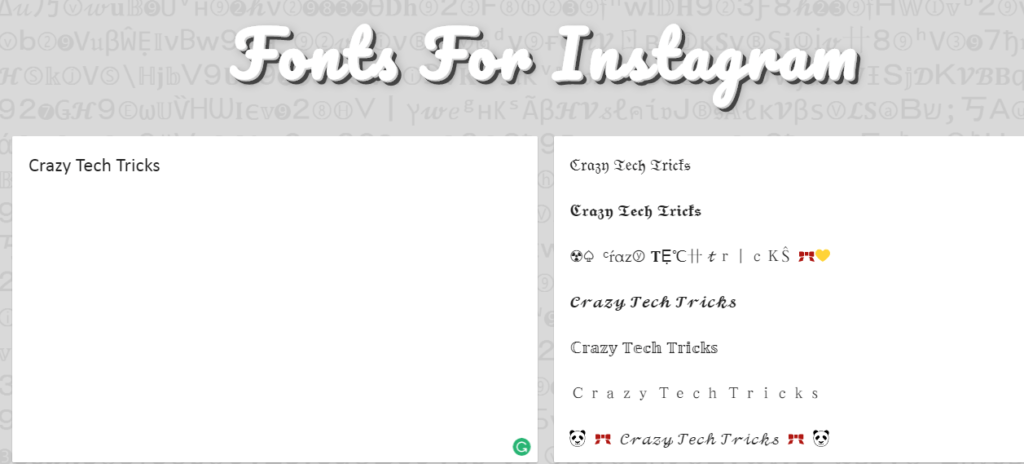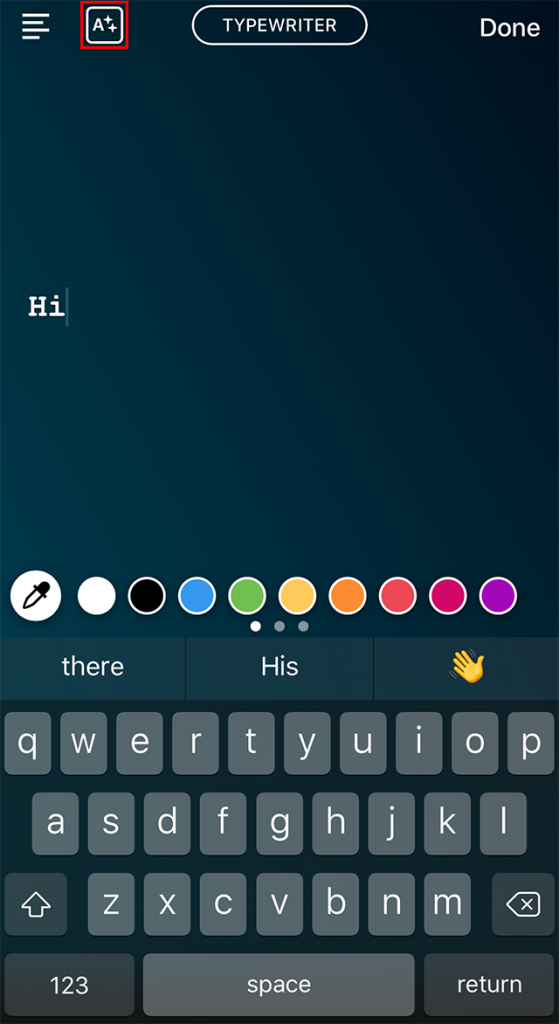
How to Change Fonts on Instagram (Captions + Bio)
Do you feel like your Instagram captions lack a little something these days? 🤔
Wish there was a way to quickly grab your reader’s attention OR help them skim your caption copy for the main points?
Great news – there is, and the secret is a quick Instagram font change!
Let’s take a look at how some of our favorite Instagrammers are making the most of different fonts for Instagram in their captions – and how you can put our new Instagram font changer tool to work!
What Font Does Instagram Use?Curious what the signature Instagram text font is? This Sans Serif typeface is the immensely popular Proxima Nova, created by Mark Simonson in 2005.
If it looks familiar, it probably is. Proxima Nova is the most popular commercial font on the web and can be found on thousands of websites.
Where Do Those Cool Fonts for Instagram Come From?If you’ve poked around at all while trying to change your font on Instagram, you’ve probably noticed there aren’t other fonts readily available on the platform.
And if you’ve spied cursive fonts or funky bubble letters across tons of profiles, you may be already clued in that the types of Instagram fonts you can actually use are limited.
The reason for this is simply that they’re not other fonts at all.
The stylistic letters and symbols you’re seeing in Instagram captions and bios are actually Unicode characters.
Poke around Insert Symbols or Special Characters in a word processor doc, and chances are you’ll come across part of or all of the thousands of unique symbols in Unicode.
We won’t dive into the technical specifics here, but suffice it to say, some of these symbols (and in some cases, entire alphabets) can be used in your Instagram bio or caption for a unique look!
Some of the supported Unicode symbols that can be used for Instagram font options are:
- 𝒽𝒶𝓃𝒹𝓌𝓇𝒾𝓉𝓉𝑒𝓃 𝒻𝑜𝓃𝓉
- 𝔻𝕠𝕦𝕓𝕝𝕖 𝕤𝕥𝕣𝕦𝕔𝕜 𝕗𝕠𝕟𝕥
- 𝔊𝔬𝔱𝔥𝔦𝔠 𝔣𝔬𝔫𝔱
- 𝐓𝐢𝐦𝐞𝐬 𝐍𝐞𝐰 𝐑𝐨𝐦𝐚𝐧
- 𝗕𝗼𝗹𝗱 𝗜𝗻𝘀𝘁𝗮𝗴𝗿𝗮𝗺 𝗳𝗼𝗻𝘁
- Ⓑⓤⓑⓑⓛⓔ ⓛⓔⓣⓣⓔⓡⓢ
- 🄱🄻🄾🄲🄺 🄻🄴🅃🅃🄴🅁🅂
There are also tons of ϝαɳƈყ ıŋʂɬąɠཞąɱ ₣Ø₦₮ [̲̅o][̲̅p][̲̅t][̲̅i][̲̅o][̲̅n][̲̅s] if you know where to look (don’t worry -we’ll help!)
How to Get Different Fonts On InstagramYou can use these different fonts on Instagram in a few different places, including in your Instagram captions, your Instagram bio and in your Instagram Stories!
We’ll walk you through how to change each below:
How to Change Fonts on Instagram PostsYou can grab any type of Instagram font you want to use in your caption from an Instagram font generator tool like LingoJam.
Simply type in the phrase you want to display in a unique font and copy and paste it into our caption!
A word of caution here: a lot of fancy Instagram fonts are hard to read – especially in a long caption.
That’s why our Tailwind caption font formatting tool gives you four style options that are the easiest to read on the platform while still making your caption uniquely yours!
Here’s how to get different fonts on Instagram with Tailwind’s Instagram planning tool:
- Log in to Tailwind for Instagram on your desktop
- Upload your post photo, OR select an existing photo you want to edit!
- Begin typing your caption
- Select from the different fonts for Instagram in the pop-up. You can choose Serif, Cursive, Bold and Italic.
You can also combine some styles together, such as Bold + Italic, Bold + Cursive, and even Bold, Italic + Times New Roman for all kinds of fancy letters.
You’re not limited to one style for your entire caption, either! You can use any style in any part of your caption except Hashtags. Just click the different fonts you’d like to use on Instagram as you’re typing!
See? We told you it was the easiest way to change your font – no pesky generator or Instagram caption formatting web tool required.
How to Change Instagram Bio FontsThe Instagram bio is definitely the place where unique Instagram fonts shine. If you’re wondering how to change the font in your Instagram bio, it’s really easy – especially with the feature built into Tailwind’s Instagram scheduling tool!
You’ll need to change the font on your Instagram bio via desktop. It takes just two steps:
Step One: Open Tailwind For Instagram on DesktopTo get different fonts on Instagram, you’ll need to work in an existing draft – or upload a new post to get started.
Now open your draft and type the message you want to put in your Instagram bio (in the font of your choice!)
Lingojam.com is a very simple two window site. In the left we write the word, in the right fonts appear. About 100 options are available for selection.
Conclusion
Adding a fancy font to Instagram is easier than you think. But if you use Instagram to promote your business, choose fonts that match the style of the company.